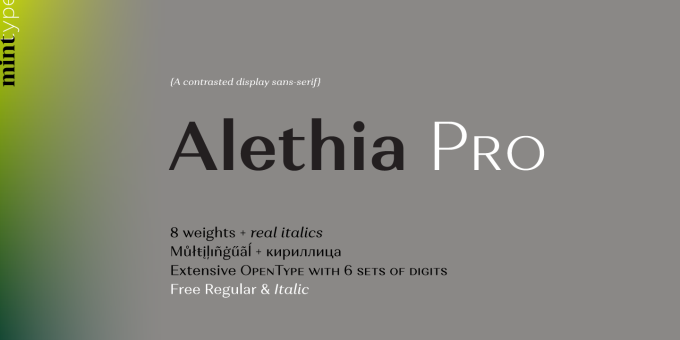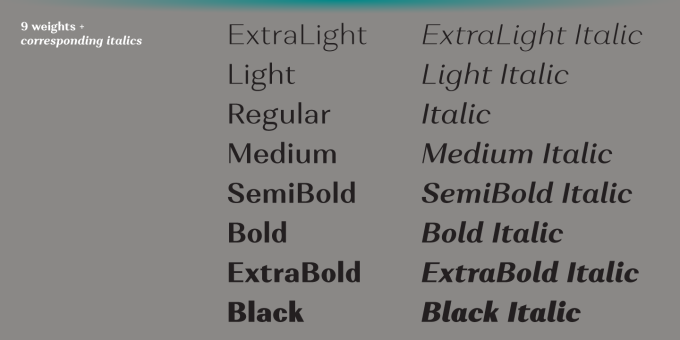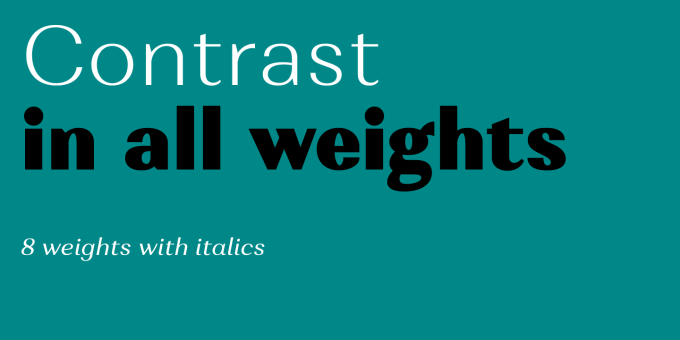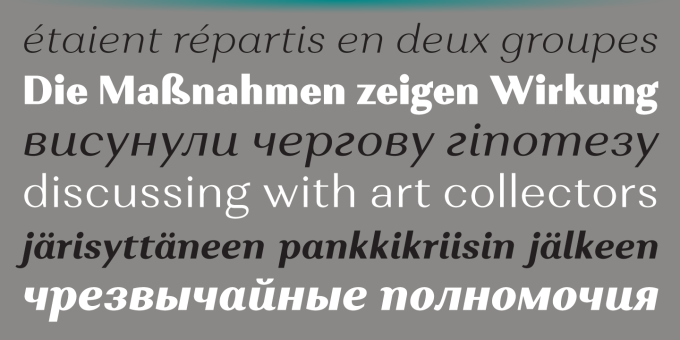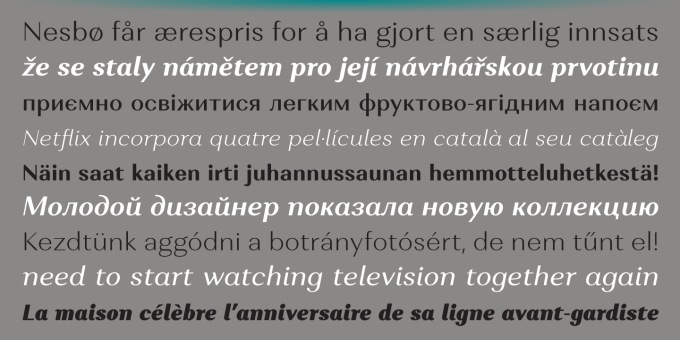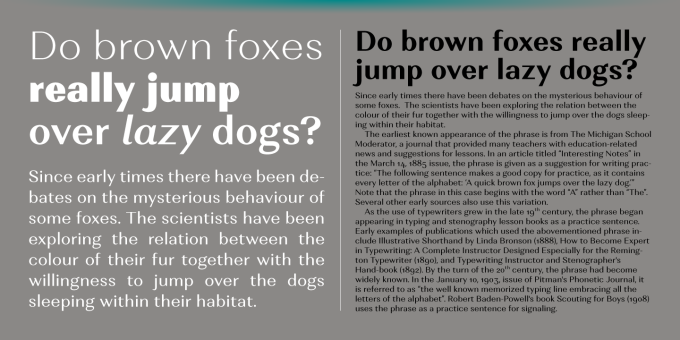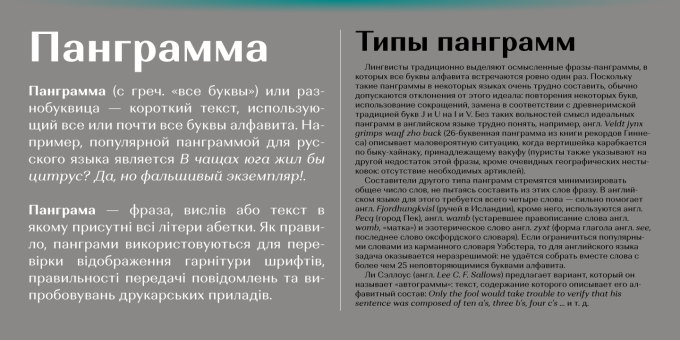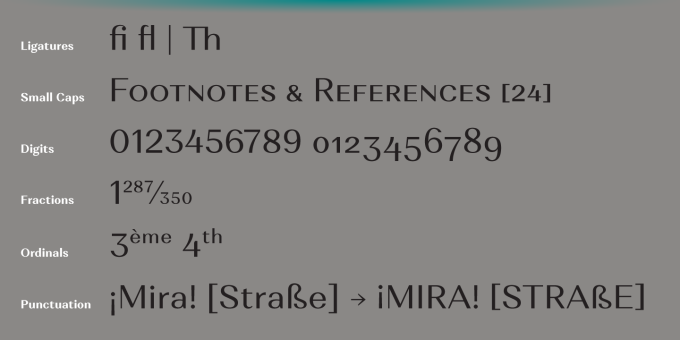
Alethia Pro
Alethia Pro is a display sans-serif typeface with high contrast in all weights.
It comes in 8 weights + matching italics each supporting numerous Latin-based languages as well as major Cyrillic languages. It is packed with OpenType features like ligatures, small caps, 6 sets of digits, superiors and inferiors, fractions, ordinals, respective punctuation varieties including all-cap punctuation, as well as language-specific alternates.